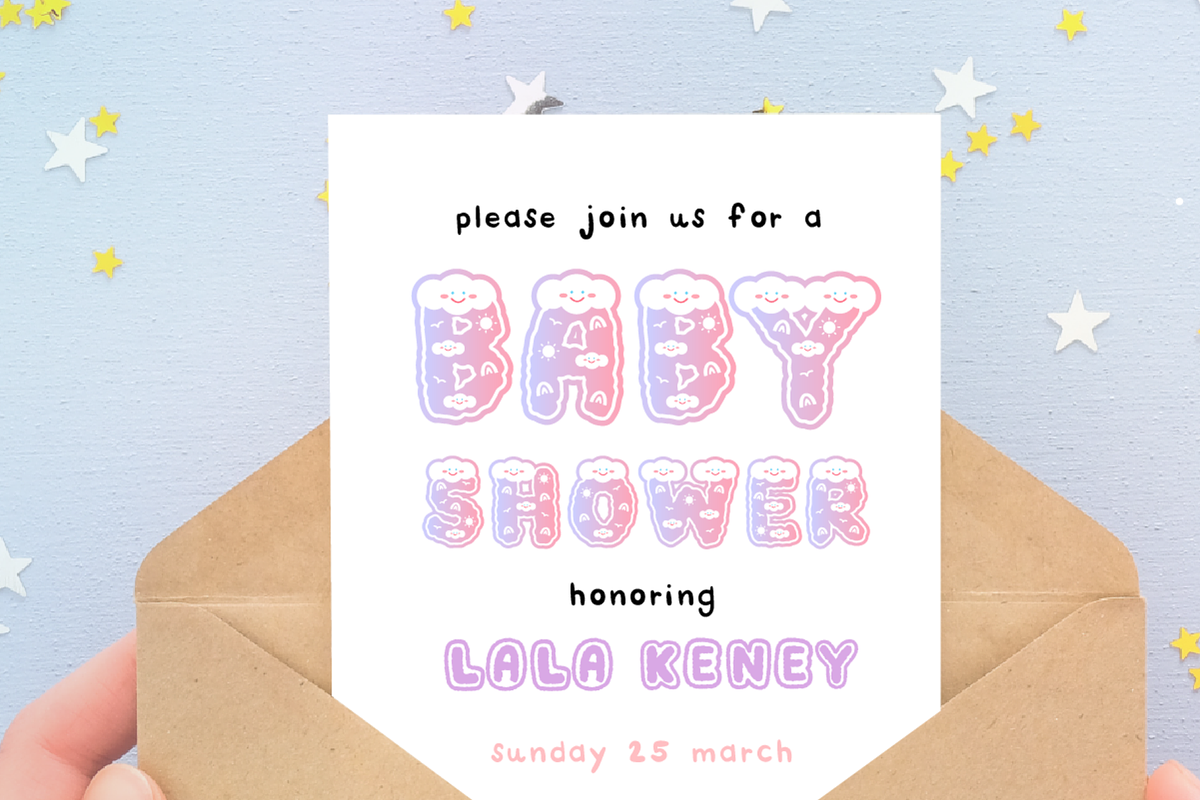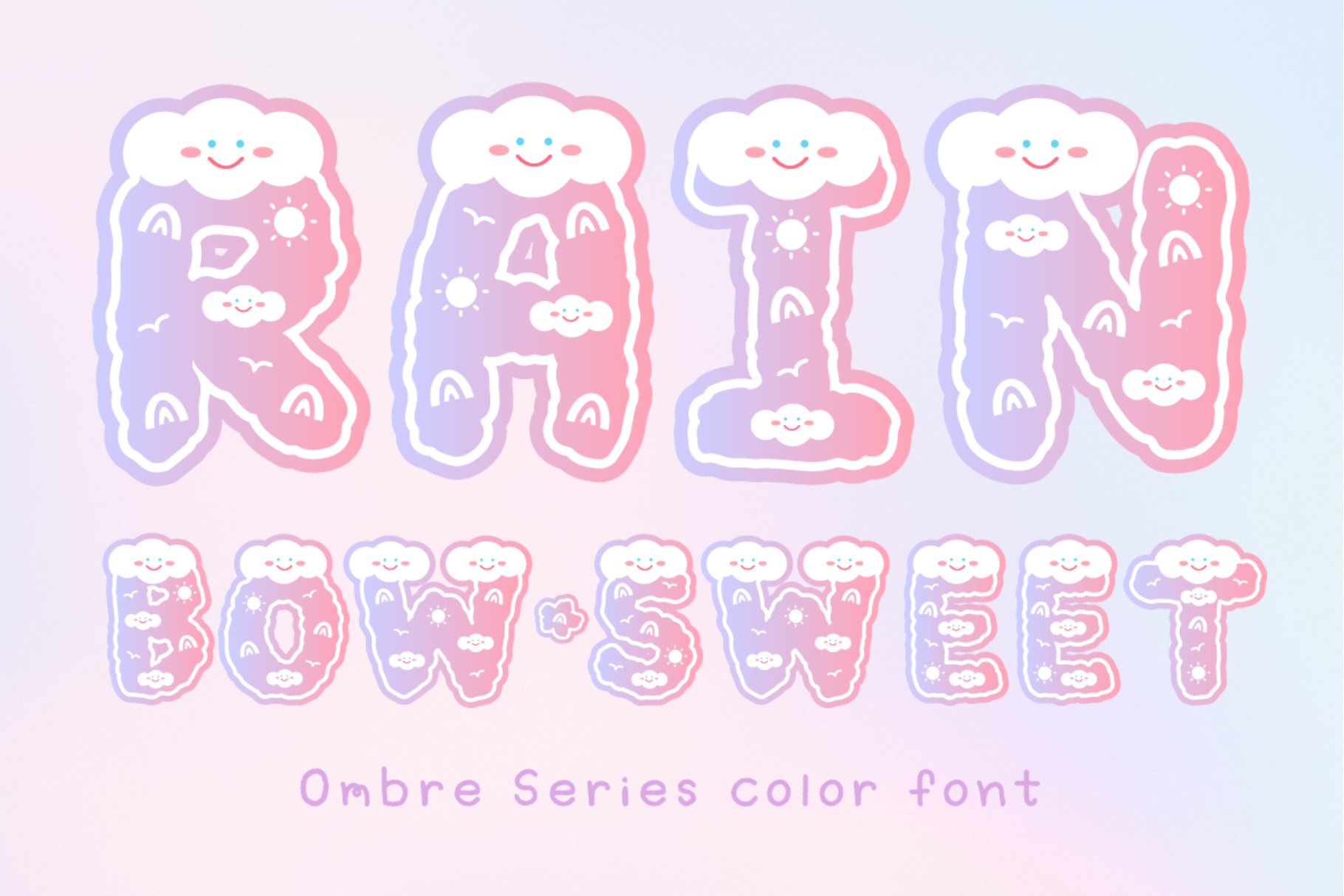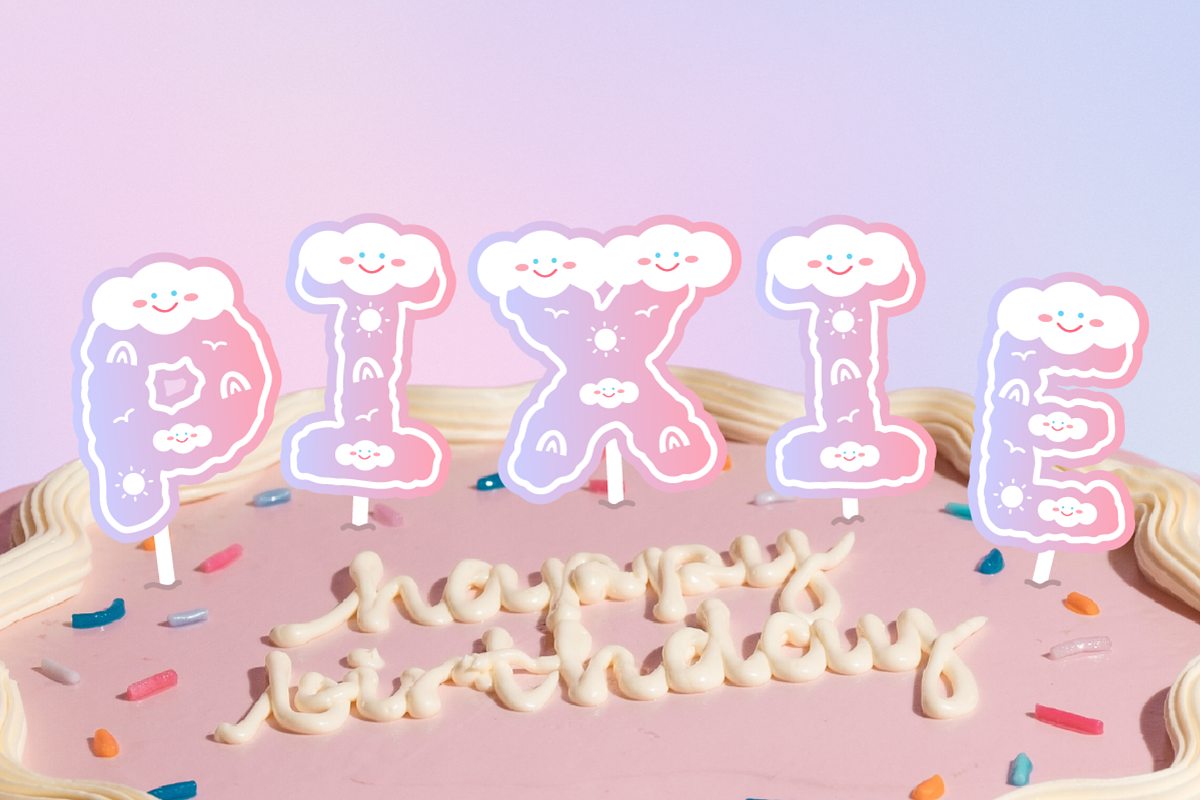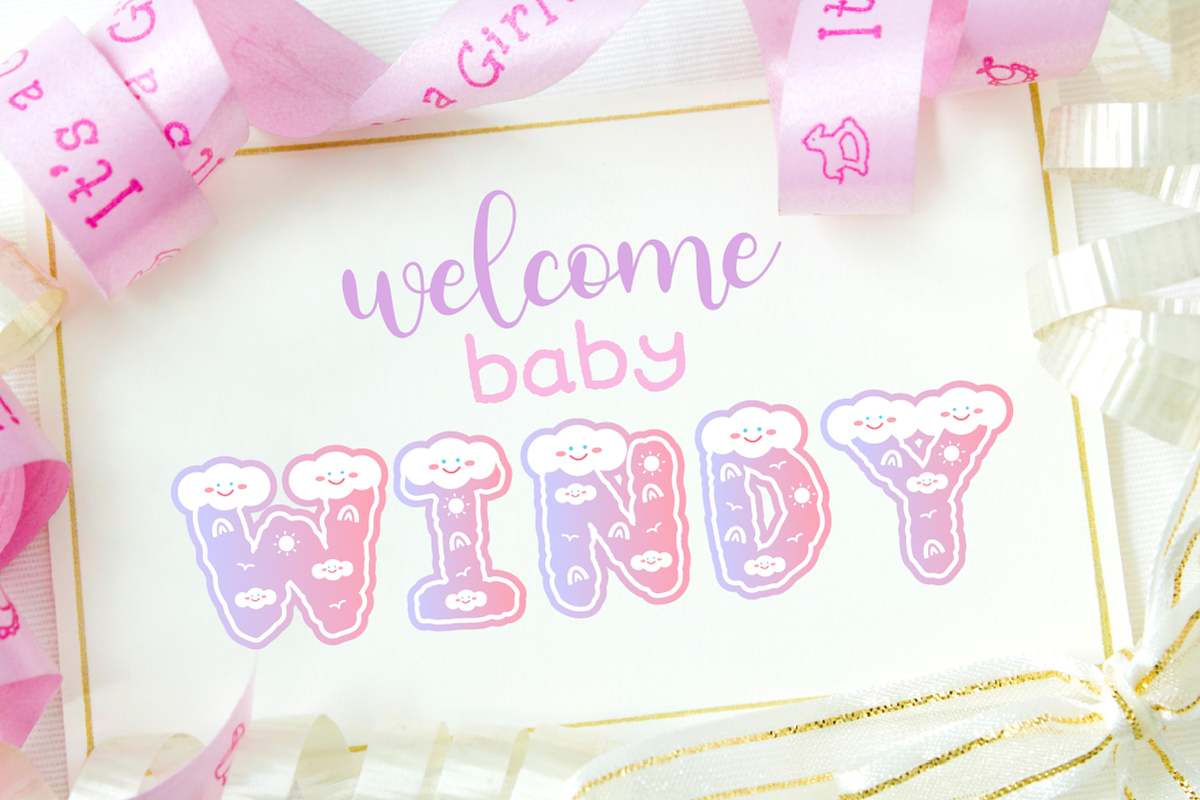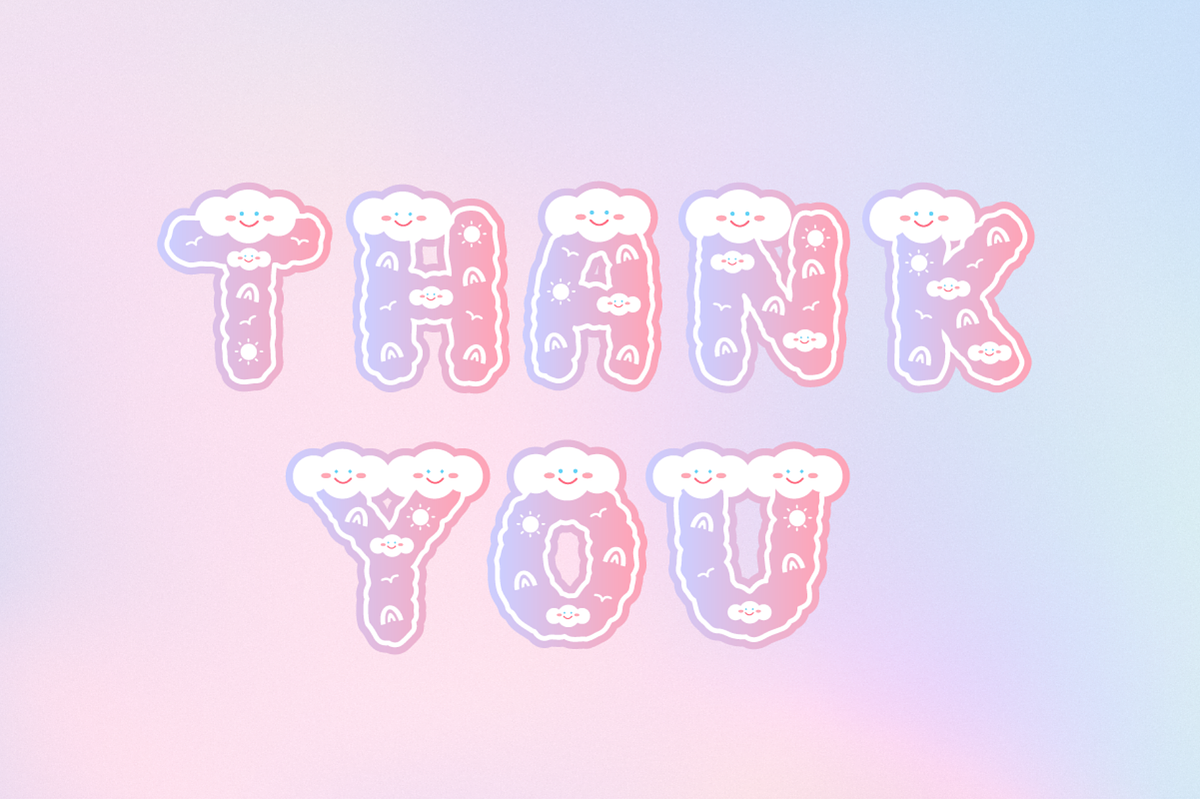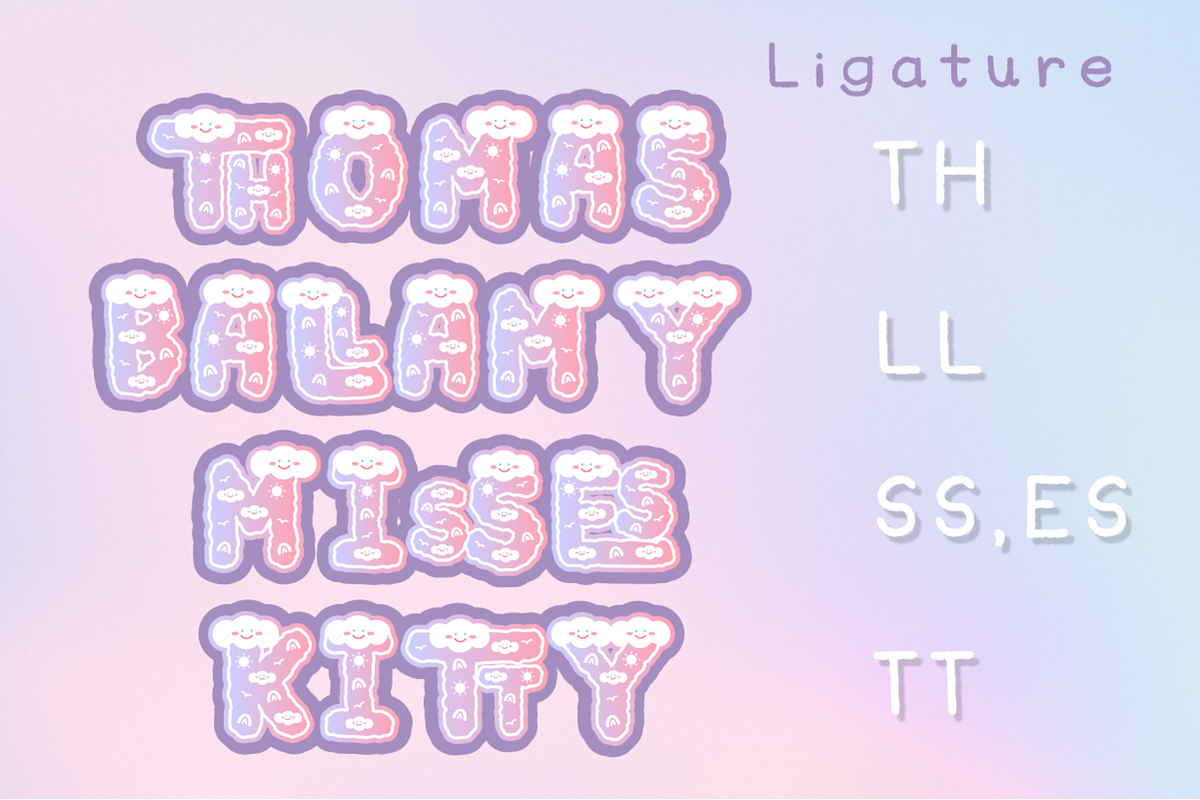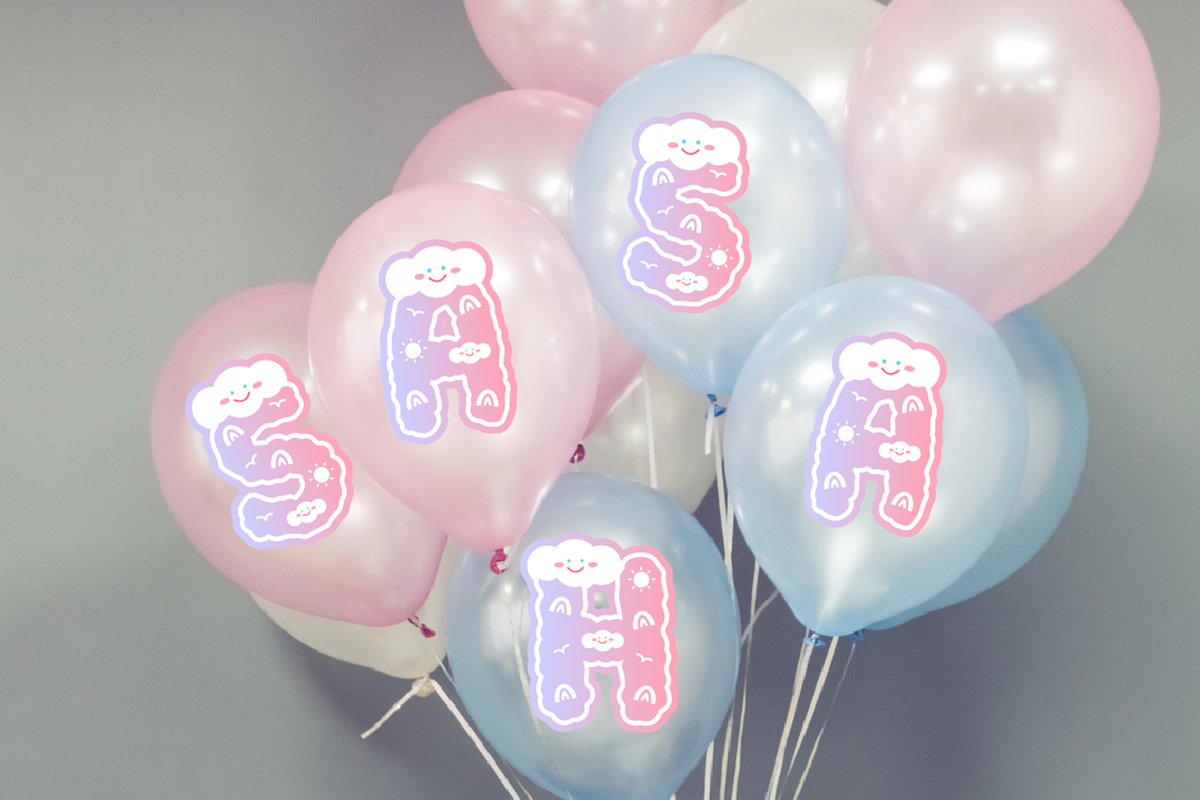
Rainbow Sweet - SVG Color Cute Font
Rainbow Sweet is a delightful and charming color typeface that embodies the essence of sweetness and joy. Inspired by the vibrant and cheerful colors of the rainbow, this font brings a playful and lighthearted touch to any design.